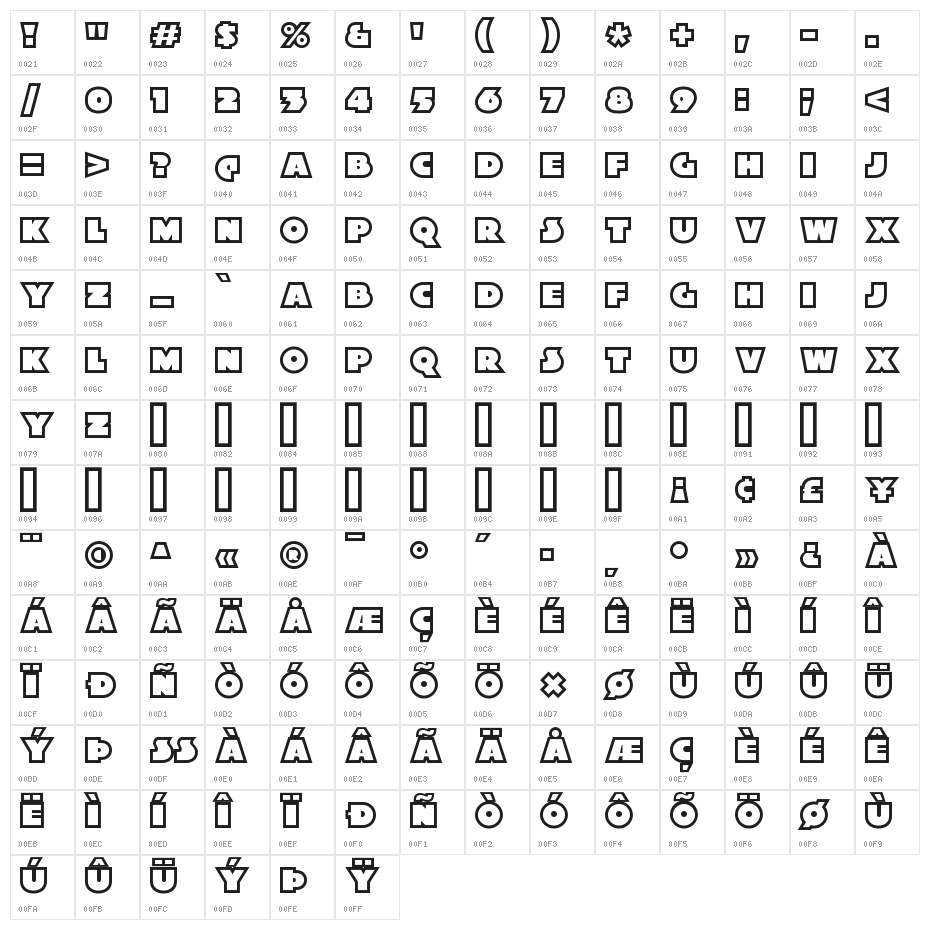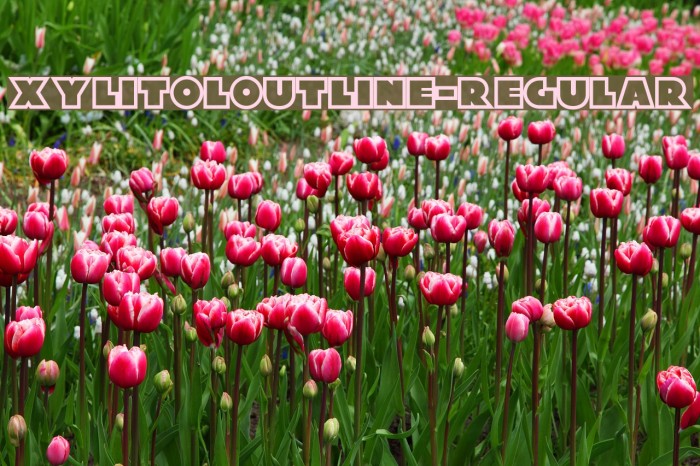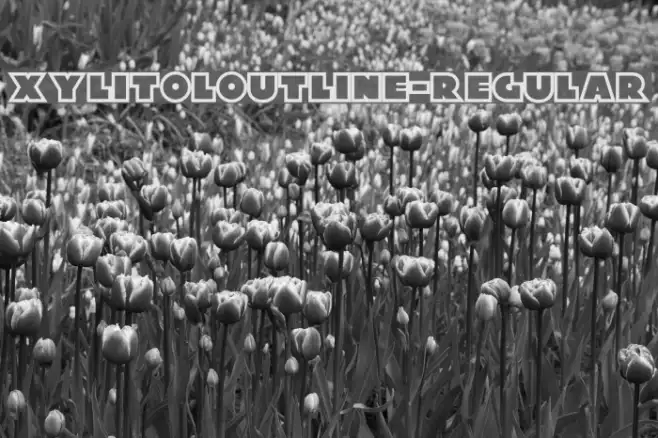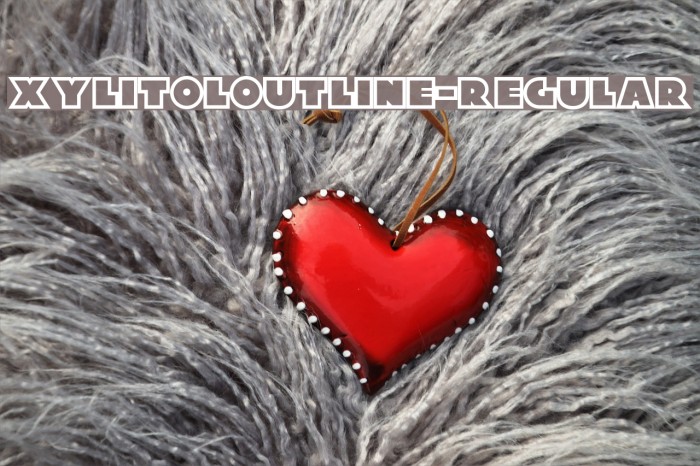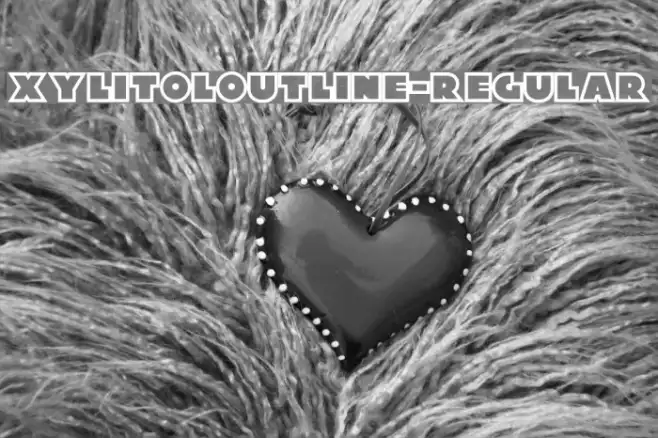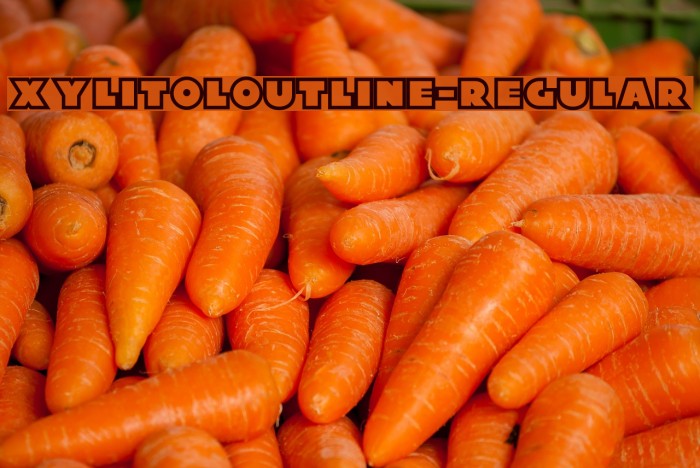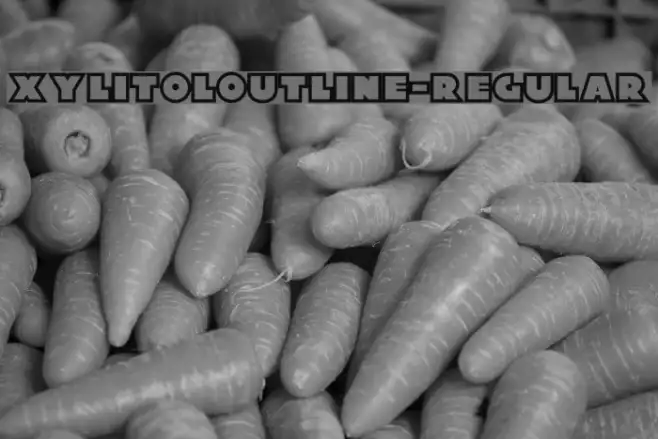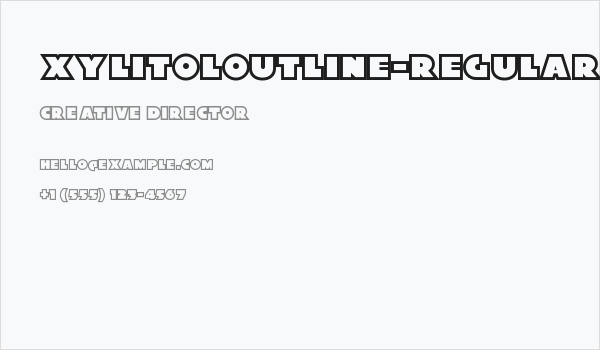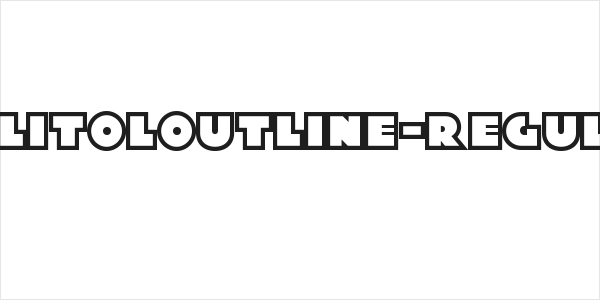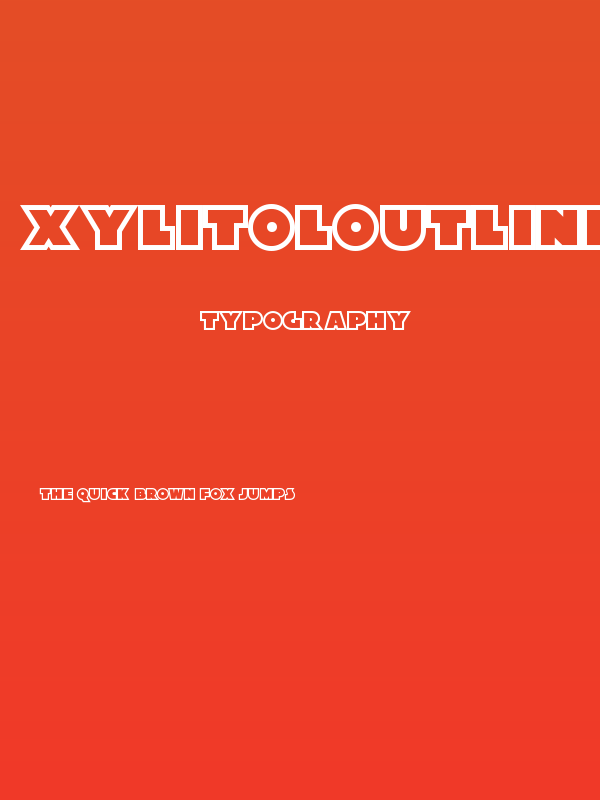
XylitolOutline-Regular Font
XylitolOutline-Regular Description
This font features a bold, geometric style with a distinct outline that gives it a strong, impactful presence. The characters are constructed with sharp angles and clean lines, creating a modern and dynamic appearance. The uppercase letters are particularly striking, with a uniform height and width that contribute to a cohesive look. The lowercase letters maintain the same boldness, ensuring readability and consistency across different text sizes. The numerals are equally bold and geometric, fitting seamlessly with the overall design. Special characters are included, maintaining the same stylistic elements, making this font versatile for various applications.
| Proposed Projects | Ideal for headlines, posters, branding, and any project requiring a bold, eye-catching typeface. |